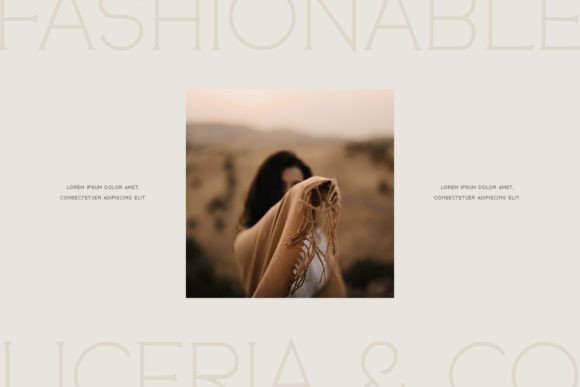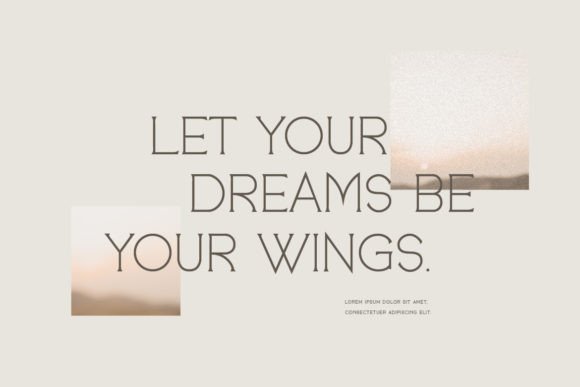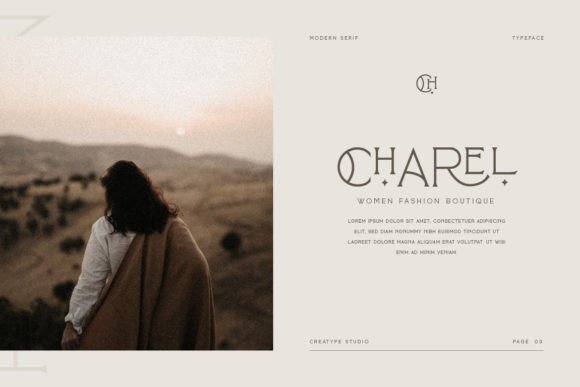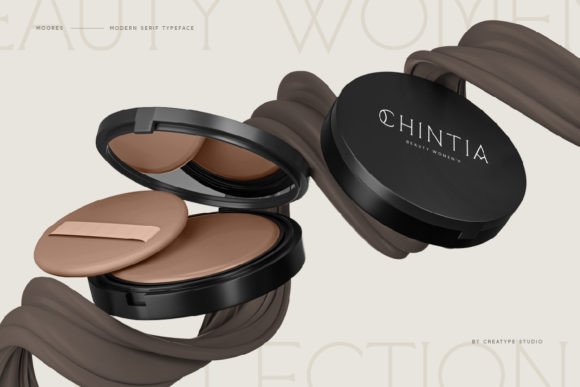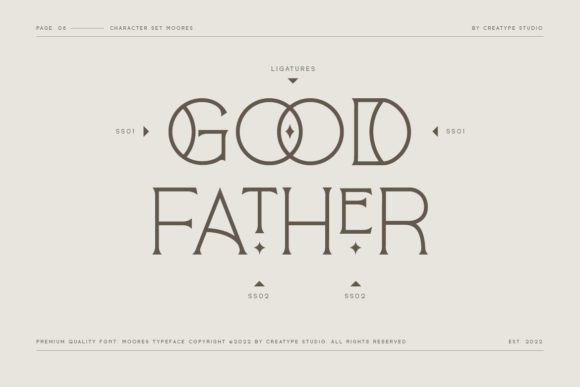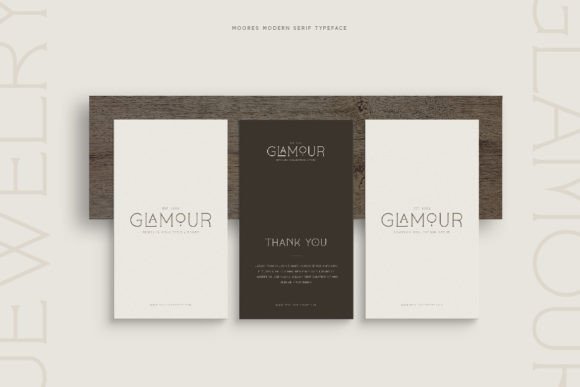
Introduction to Moores Font Font
Fonts play a crucial role in design, and the Moores Font font is a typeface that brings both character and versatility to any project. Whether you’re working on a branding project, a website, or a print design, the Moores Font font offers a unique style that can elevate your work.
Moores is a modern serif known for its geometric styles.
Without losing the geometric style, Mooreβs typeface still looks stunning Itβs feminine with a magical touch to make it more attractive.
Key Features of Moores Font Font
Why Choose Moores Font Font?
The Moores Font font is more than just a typeface β it’s a design tool that helps you communicate your message with style and clarity. Its unique character set and versatile design make it suitable for a wide range of applications, from elegant invitations to bold headlines.
With its carefully crafted letterforms and balanced proportions, the Moores Font font ensures readability and visual appeal across all mediums.
What makes Moores Font font special?
The Moores Font font stands out with its unique design, exceptional readability, and versatility across various design applications.